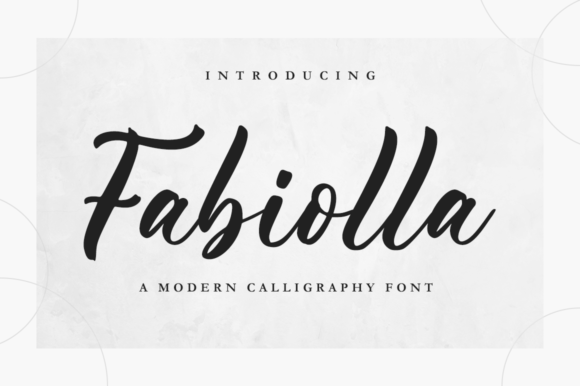
Journey into the world of Fabiolla Font, the enchanting script typeface that captivates hearts with its undeniable charm and elegance. This exquisite font, crafted with meticulous care by NissaStudio, dances gracefully across the baseline, leaving a trail of beauty in its wake.
Fabiolla is a font that speaks to the soul, whispering stories of romance and heartfelt emotions. Its characters, like delicate brushstrokes, flow seamlessly, creating a visual symphony that dances with grace. Whether you're composing a heartfelt letter, designing an enchanting wedding invitation, or crafting a captivating logo, Fabiolla becomes an extension of your artistic expression.
With its effortless versatility, Fabiolla adapts flawlessly to a myriad of creative endeavors. Its presence on business cards exudes professionalism and sophistication, beckoning clients with a touch of elegance. On t-shirts and letterheads, Fabiolla adds a personal touch, like a handwritten note from the heart. Its versatility shines in signage and labels, drawing attention with its charming allure.
Fabiolla is not merely a font; it's a medium through which emotions find expression. Its delicate strokes evoke a sense of nostalgia, while its modern flair keeps pace with the ever-evolving digital landscape. Whether you're a seasoned designer or a creative enthusiast, Fabiolla empowers you to create designs that resonate with your audience, leaving an indelible mark on their memories.
As you immerse yourself in the world of Fabiolla Font, a world of endless creative possibilities unfolds before you. Let your imagination soar, let your creativity flow, and let Fabiolla be your guiding light. Experience the magic of this enchanting script, and watch as your designs bloom into masterpieces that capture hearts and leave a lasting impression.